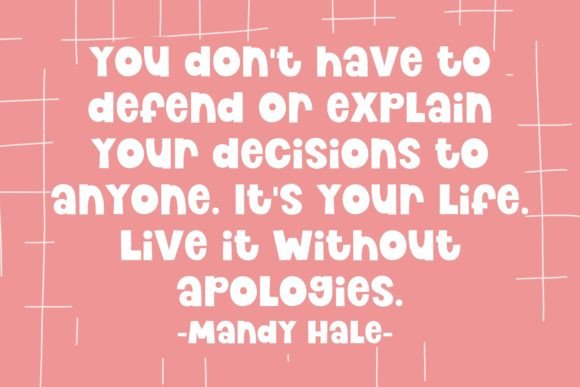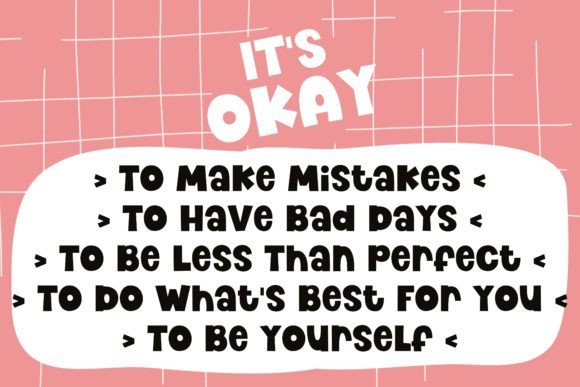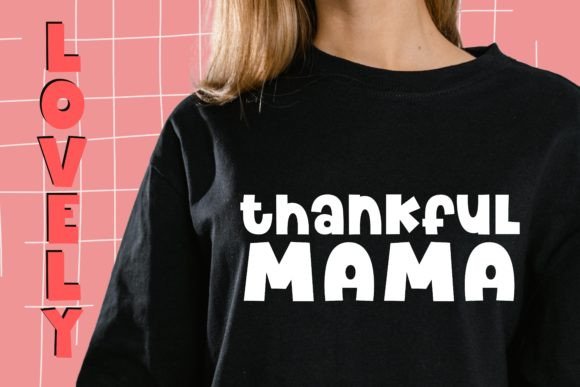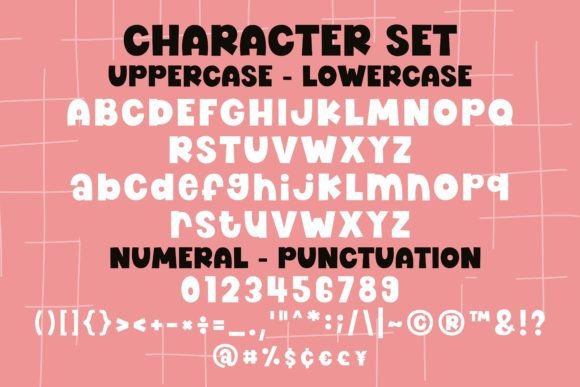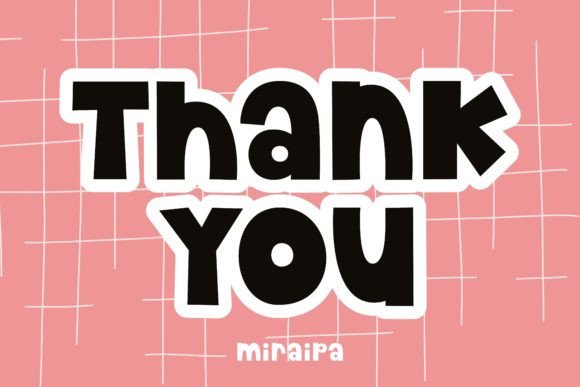
Introducing Good Vibes Font: The Perfect Addition to Your Design Library
Are you tired of using the same old fonts in your designs? Look no further! Good Vibes Font is a charming, whimsical, and playful sans serif font that is sure to bring a friendly touch to any project. In this article, we’ll dive into the features and benefits of Good Vibes Font, and explore the many ways you can use it to take your designs to the next level.
A Cute and Playful Font Style
Good Vibes Font is designed with a cute and playful sans serif font style that is sure to capture the attention of your audience. Its charming and whimsical design makes it perfect for projects that require a friendly and approachable tone. Whether you’re working on a fun project, a diary planner, or a design for a special occasion, Good Vibes Font is the perfect choice.
Perfect for Fun Projects and DIY Designs
Good Vibes Font is ideal for a wide range of fun projects and DIY designs. Here are just a few ideas to get you started:
- Easter and Spring designs: Add a playful touch to your Easter egg designs, Spring-themed posters, and other seasonal projects.
- Back to School: Create eye-catching posters, invitations, and decorations for the new school year.
- Wedding and Party Decorations: Use Good Vibes Font to create beautiful and playful wedding invitations, party decorations, and other celebratory designs.
- Fall and Halloween: Add a spooky-fun touch to your Fall and Halloween designs, including posters, invitations, and decorations.
- Christmas and Holiday Designs: Create festive and fun holiday designs, including posters, invitations, and decorations.
More Than Just a Font: Versatility and Creativity
Good Vibes Font is more than just a font – it’s a tool for creativity and self-expression. With its playful and charming design, you can use it to create a wide range of designs, from:
- Posters and flyers: Create eye-catching posters and flyers for events, promotions, and products.
- Blogs and social media posts: Add a friendly touch to your blog posts and social media updates.
- Clothing and accessories: Use Good Vibes Font to create fun and playful designs for clothing, hats, and other accessories.
- Child-related designs: Create adorable designs for children’s products, including toys, books, and educational materials.
- Greeting cards and invitations: Use Good Vibes Font to create beautiful and playful greeting cards and invitations for special occasions.
Why Choose Good Vibes Font?
So why choose Good Vibes Font over other fonts? Here are just a few reasons:
- Unique and playful design: Good Vibes Font has a unique and playful design that is sure to stand out from the crowd.
- Easy to read: Despite its playful design, Good Vibes Font is easy to read and understand, making it perfect for a wide range of designs.
- Versatile: Good Vibes Font can be used for a wide range of designs, from fun projects to professional designs.
- High-quality: Good Vibes Font is a high-quality font that is designed to produce crisp and clear results.